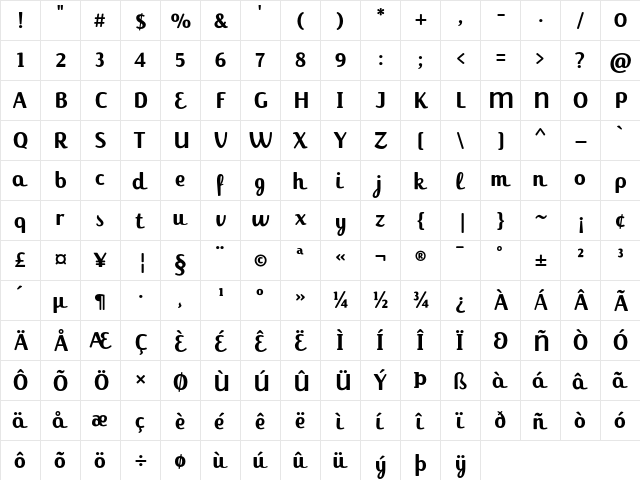
Jackie-Full Bold
Design Context for Jackie-Full Typeface
Jackie-Full offers clean, dependable letterforms without strong stylistic allegiance, making it a practical choice for designers who need flexibility. The heavy weight commands attention and anchors typographic hierarchies.
Pro Tip: Use Jackie-Full in both headline and body roles to test its range before committing to a single application.